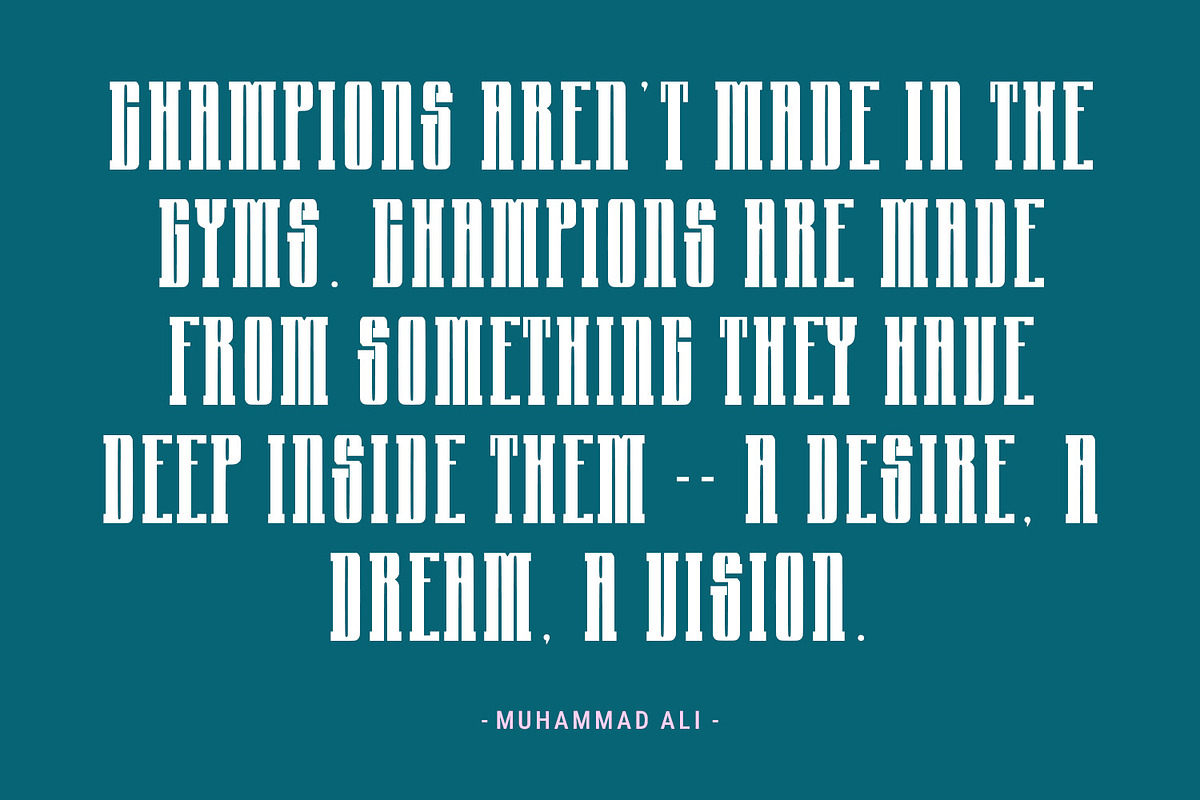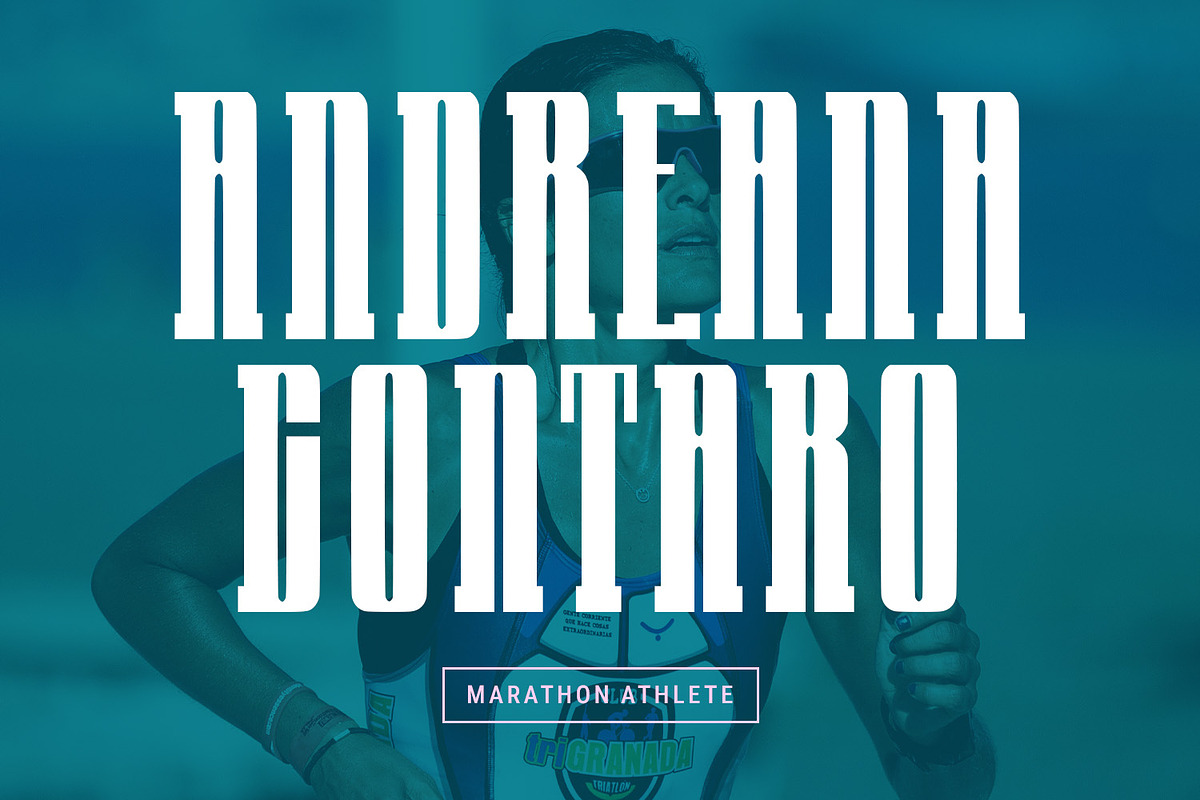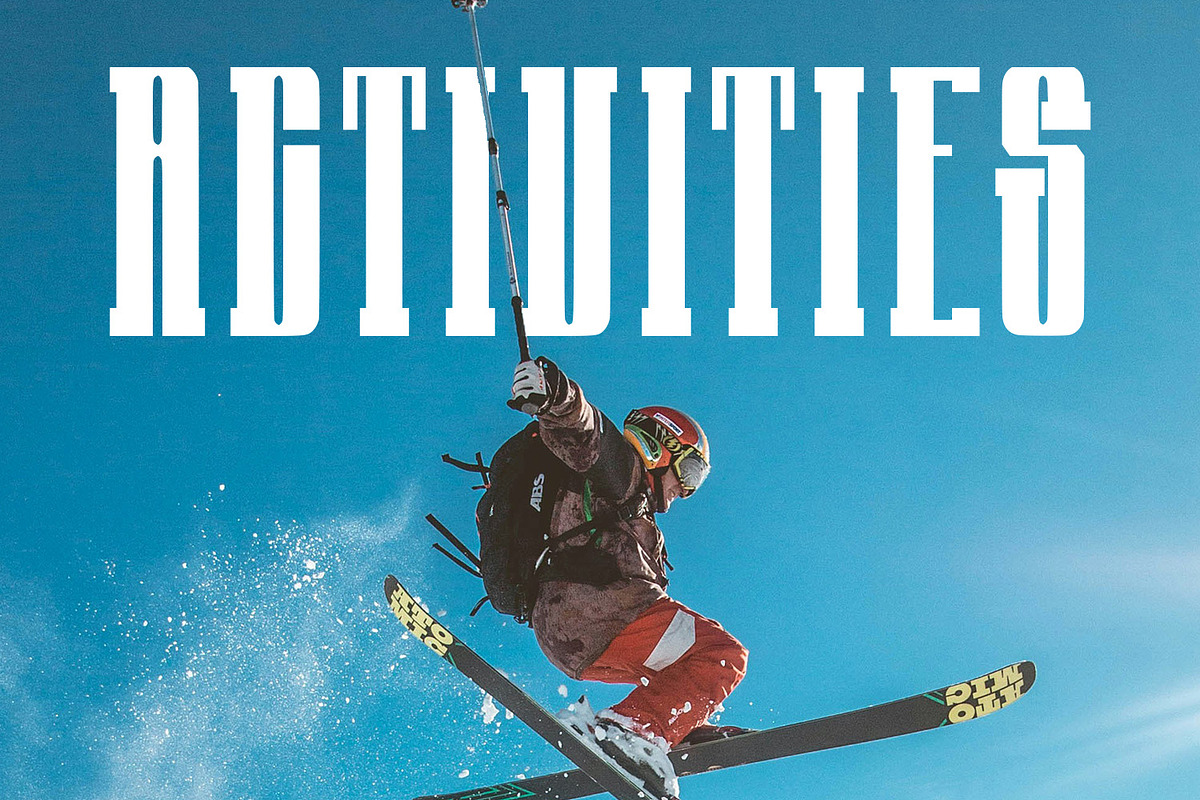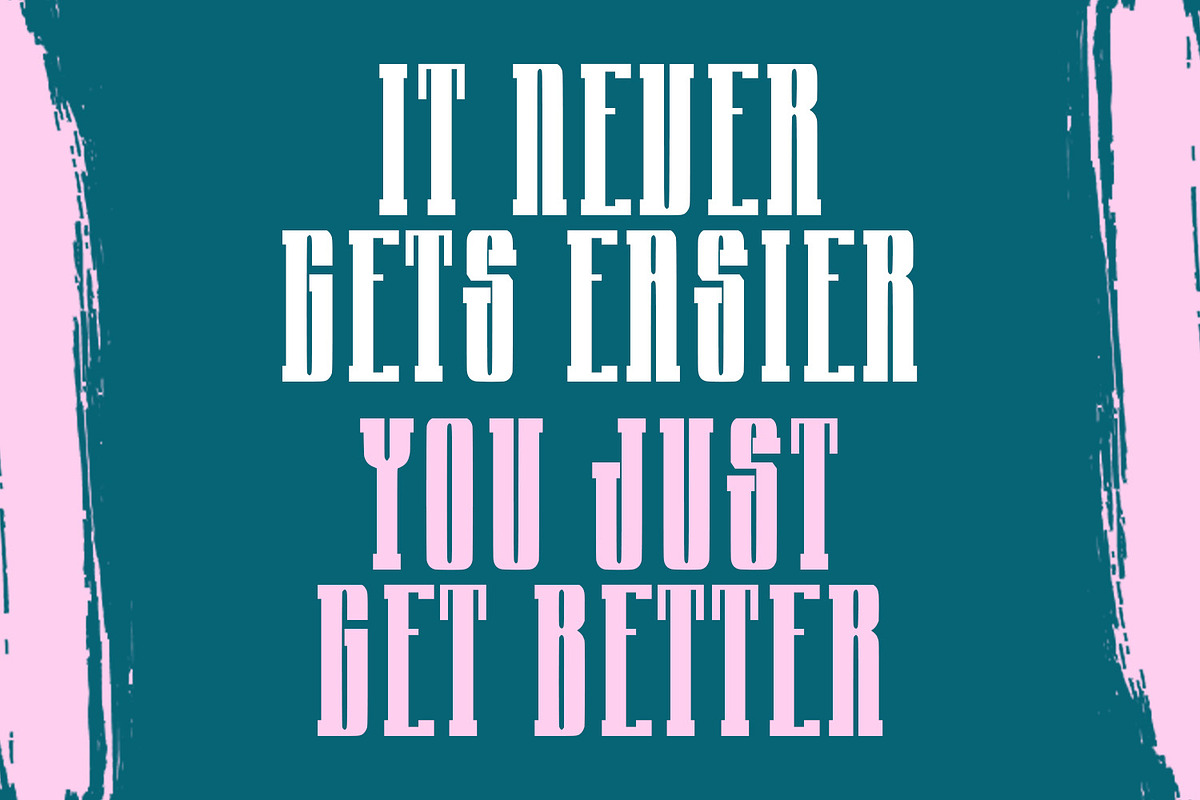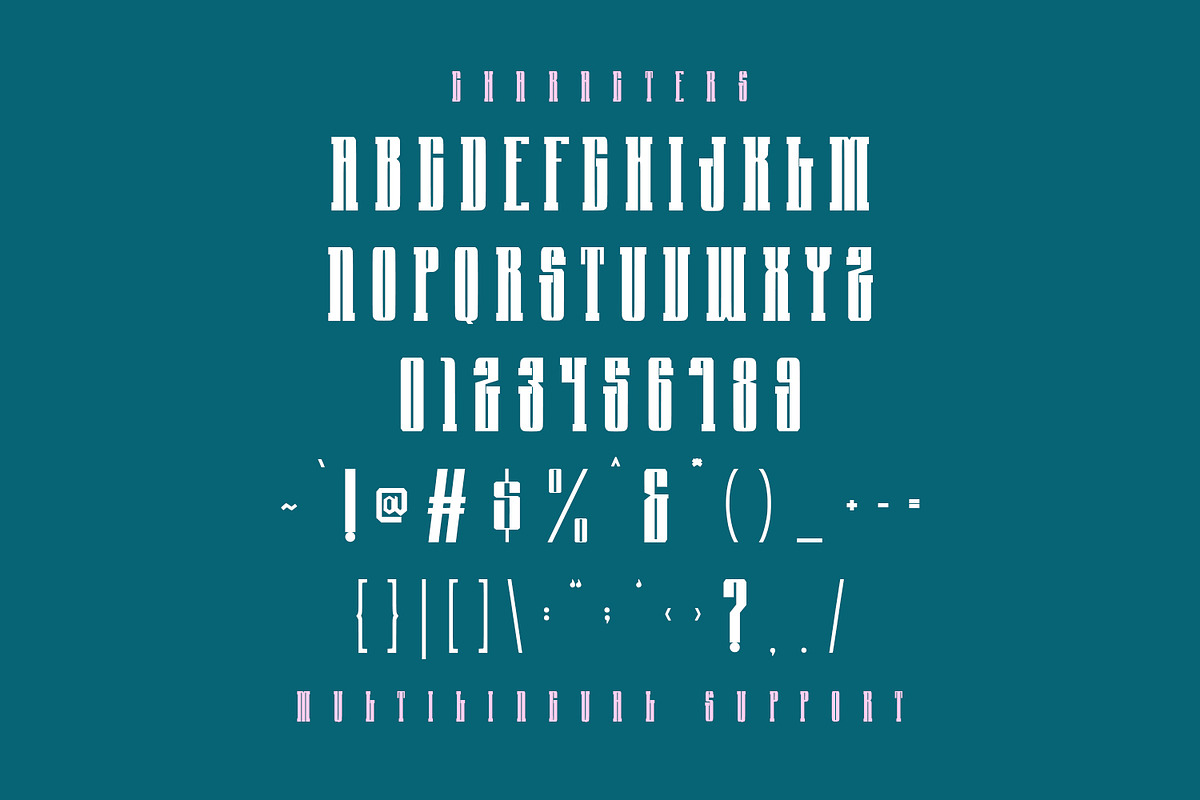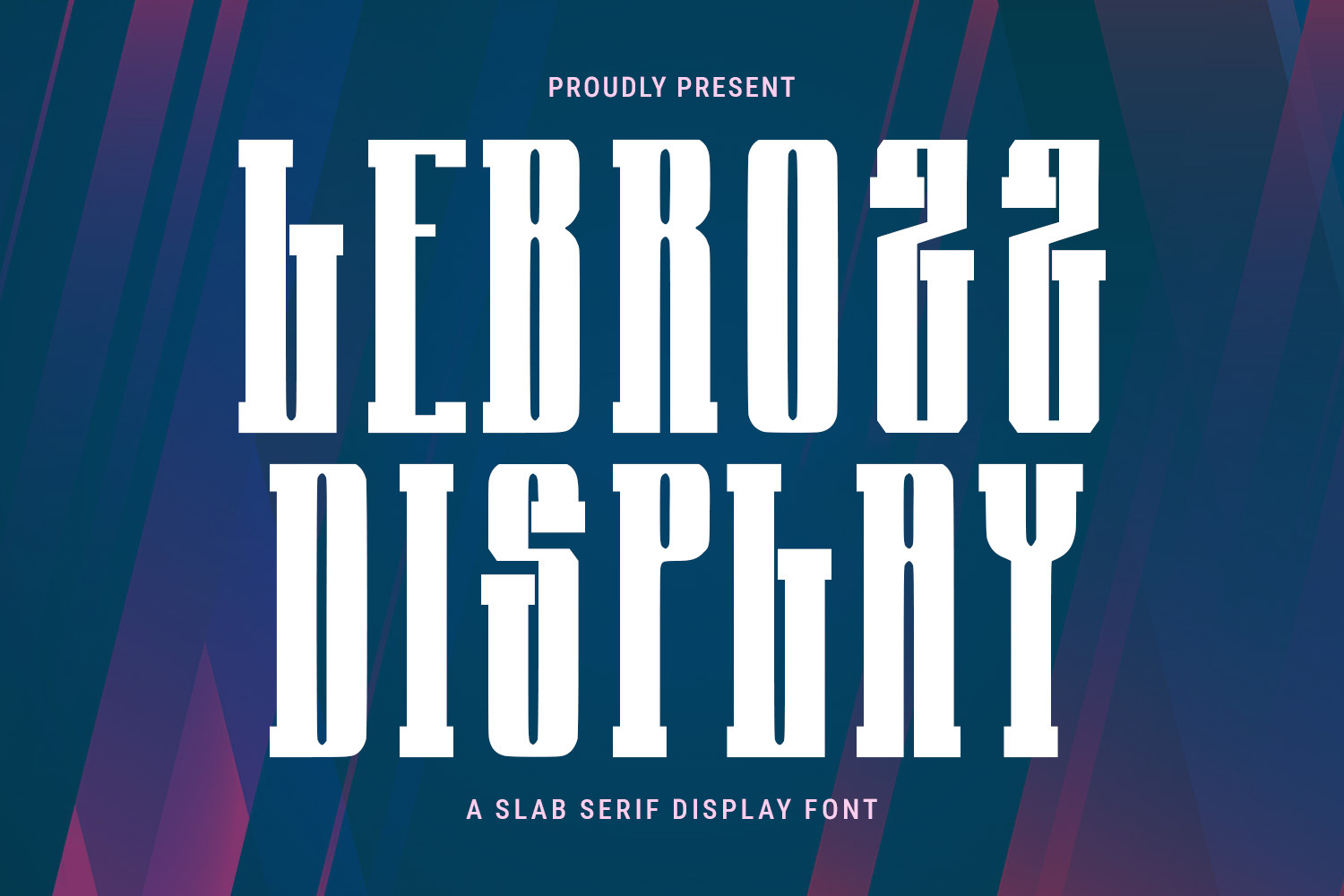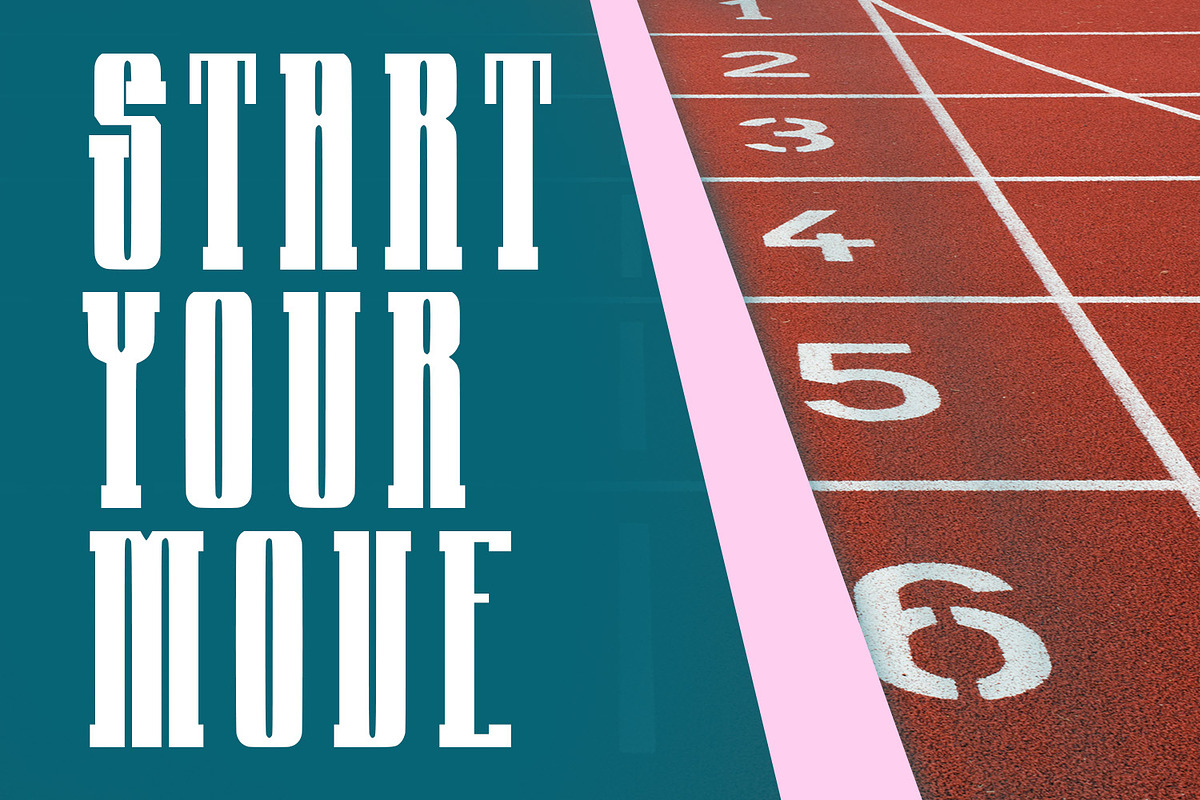
Lebrozz Slab Serif Display Bold Font
Lebrozz is a Slab Serif Bold Display Font. fun character with a bit sharp stroke. To give you an extra creative work. Lebrozz font support multilingual more than 100+ language. This font is good for Headline, logo design, Social media, Movie Titles, Books Titles, a short text even a long text letter and good for your secondary text font with sans or serif. Make a stunning work with Lebrozz font.